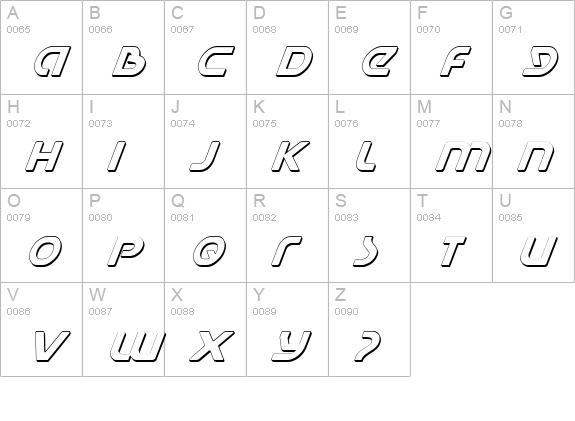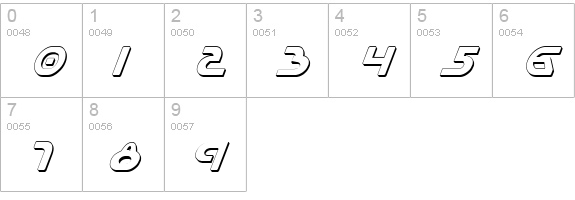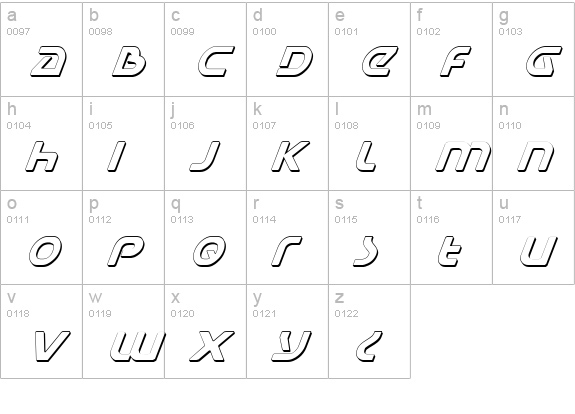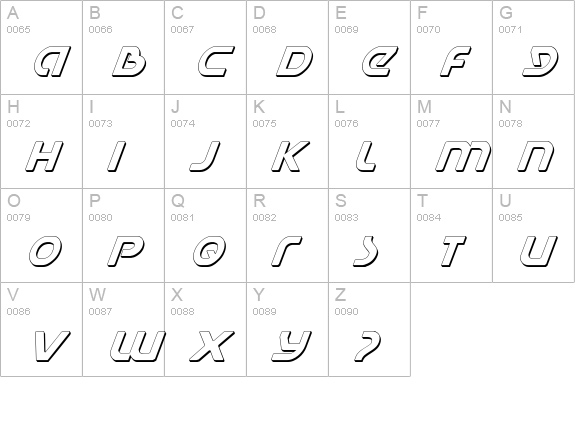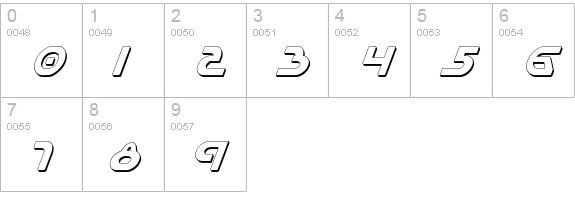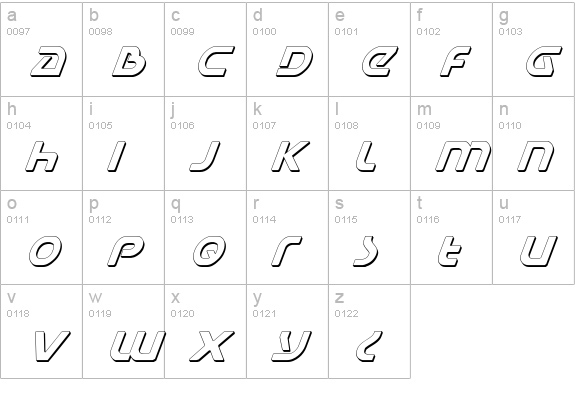
Universal Jack Shadow Italic Font Details
Universal Jack Shadow Italic is a distinctive, italic variant in the Universal typeface family \xE2\x80\x94 well suited to design and typography projects.
Universal Jack Shadow Italic is a captivating and stylish font that will add a touch of elegance and sophistication to any design project. With its unique shadowed italic styling, this font is perfect for creating eye-catching headlines, impressive logos, and stunning invitations. The Universal Jack Shadow Italic font features beautifully curved letters with a subtle shadow effect, giving your text a three-dimensional appearance. The italicized style adds a sense of movement and dynamism, making this font ideal for projects that require a modern and trendy look. This font is versatile and can be used for a wide range of design purposes. Whether you're working on a fashion magazine, a luxury brand identity, or a wedding invitation, Universal Jack Shadow Italic will make your designs stand out from the crowd. One of the best things about Universal Jack Shadow Italic is that it is absolutely free. Yes, you heard that right! This stunning font is freely available to download at FontsMarket.com. You don't have to break the bank to access this high-quality font and add it to your collection. FontsMarket.com is a trusted source for free fonts, and Universal Jack Shadow Italic is just one of the many amazing fonts available on the website. With a simple click, you can download this font and start using it in your design projects right away. Don't miss out on the opportunity to enhance your designs with the elegance and uniqueness of Universal Jack Shadow Italic. Download it for free at FontsMarket.com and let your creativity soar.